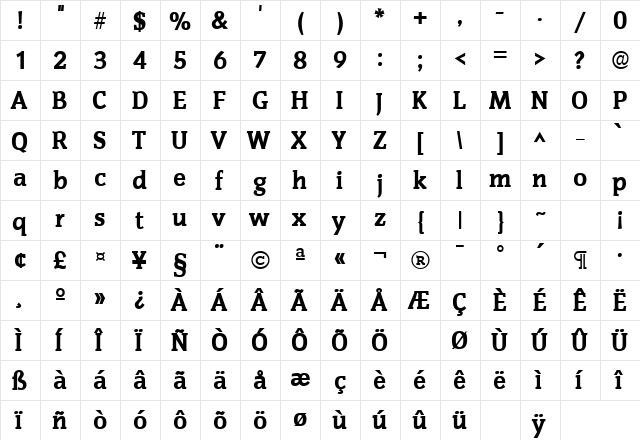
CongressH Bold
Design Context for CongressH Typeface
CongressH is a composed and adaptable typeface that performs quietly and consistently across a wide range of design contexts. Its bold stroke weight gives it real presence on the page.